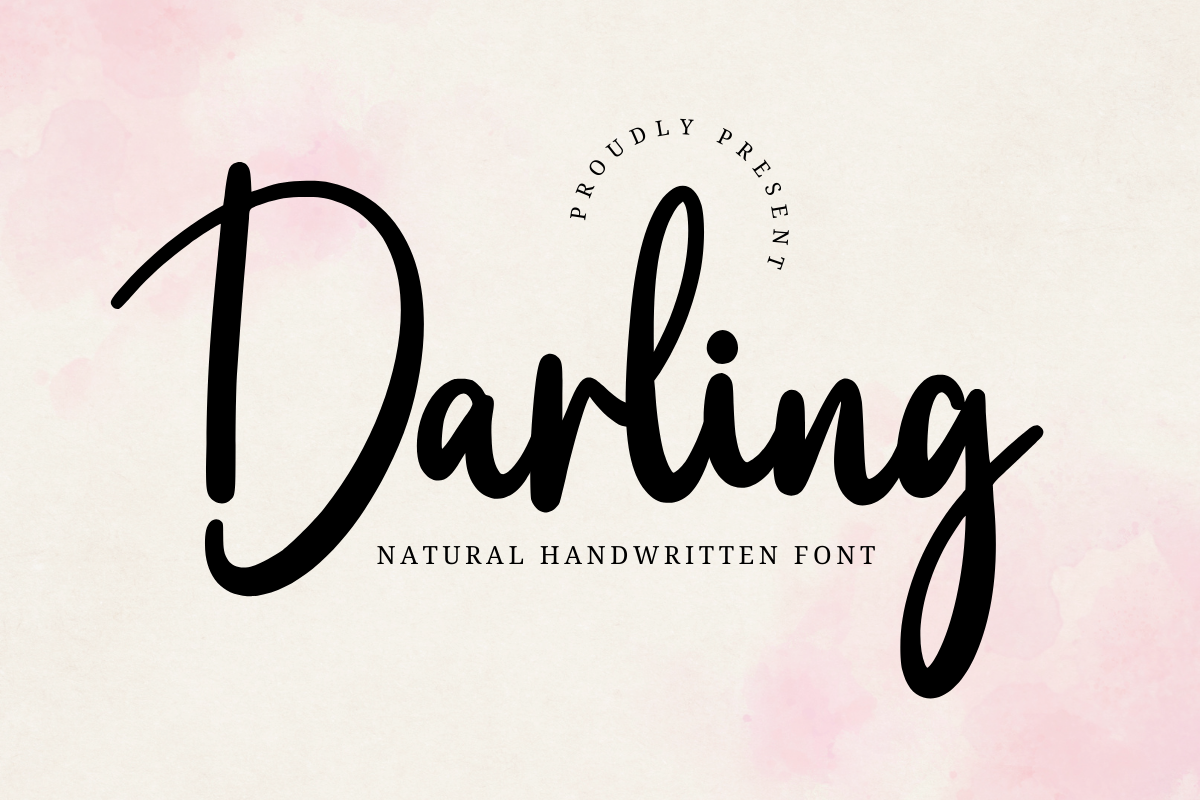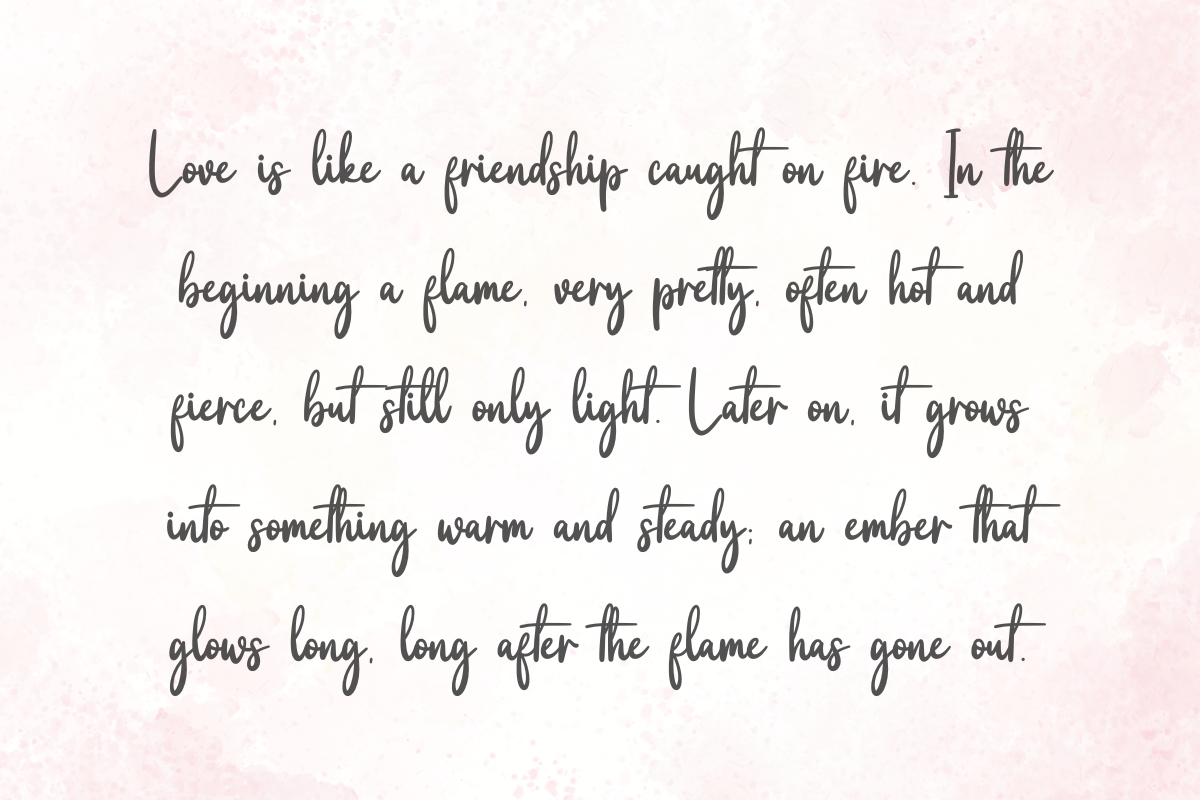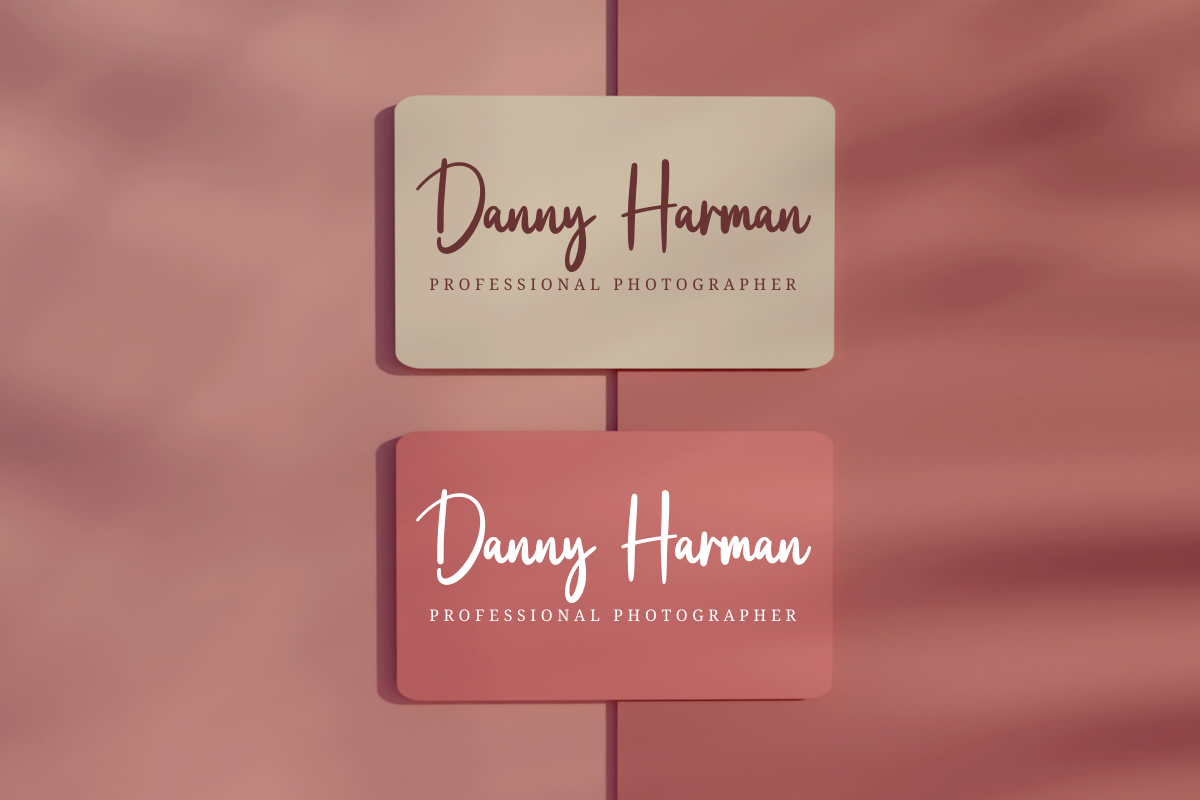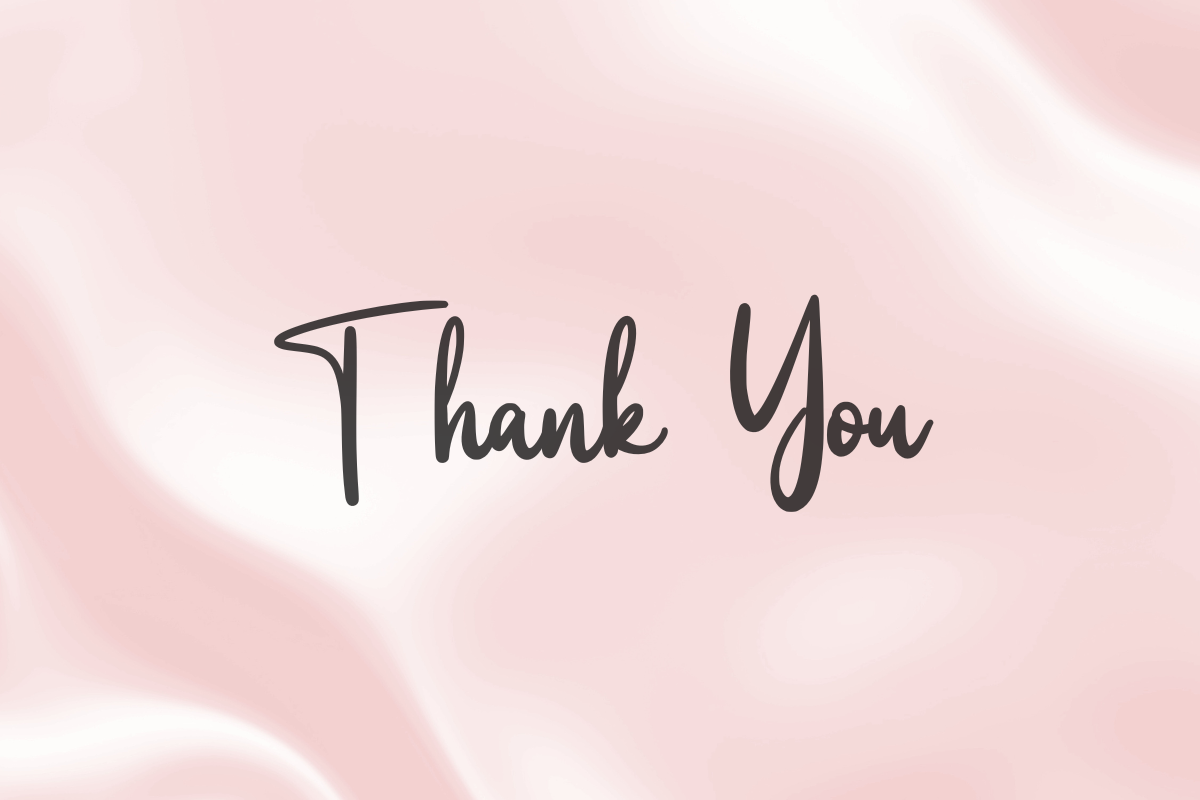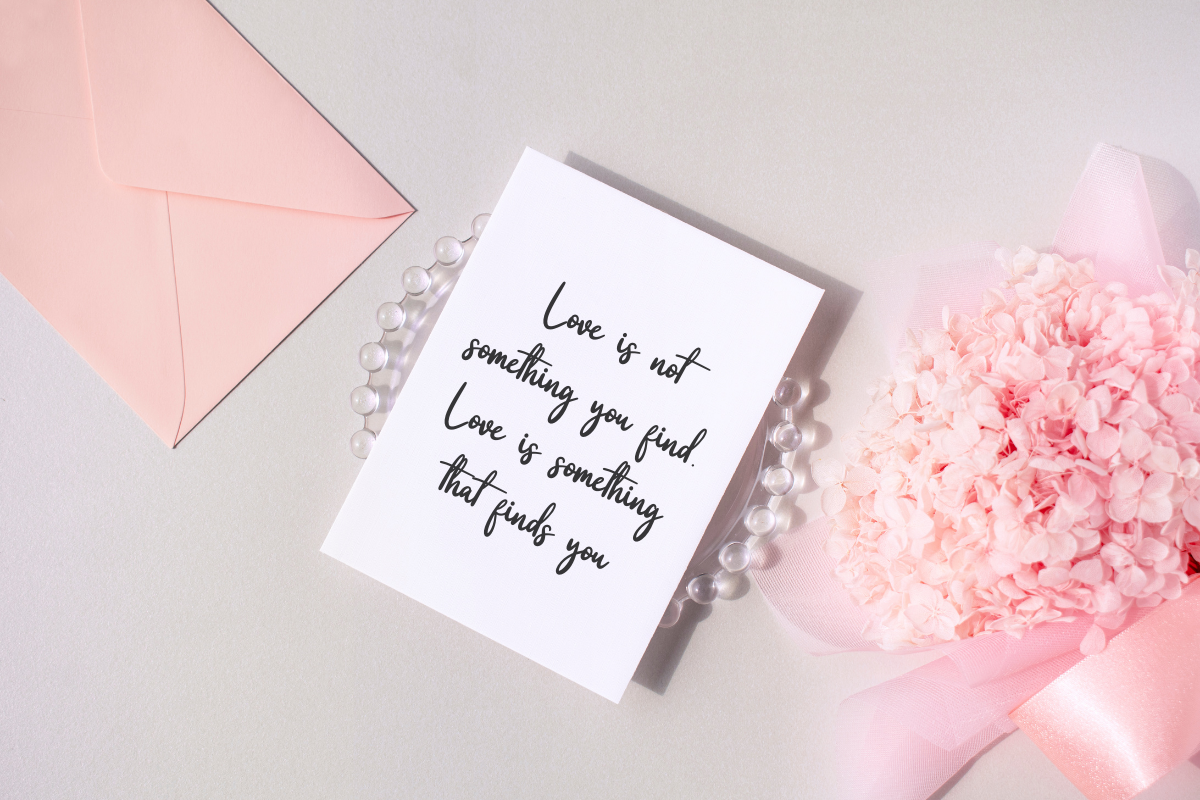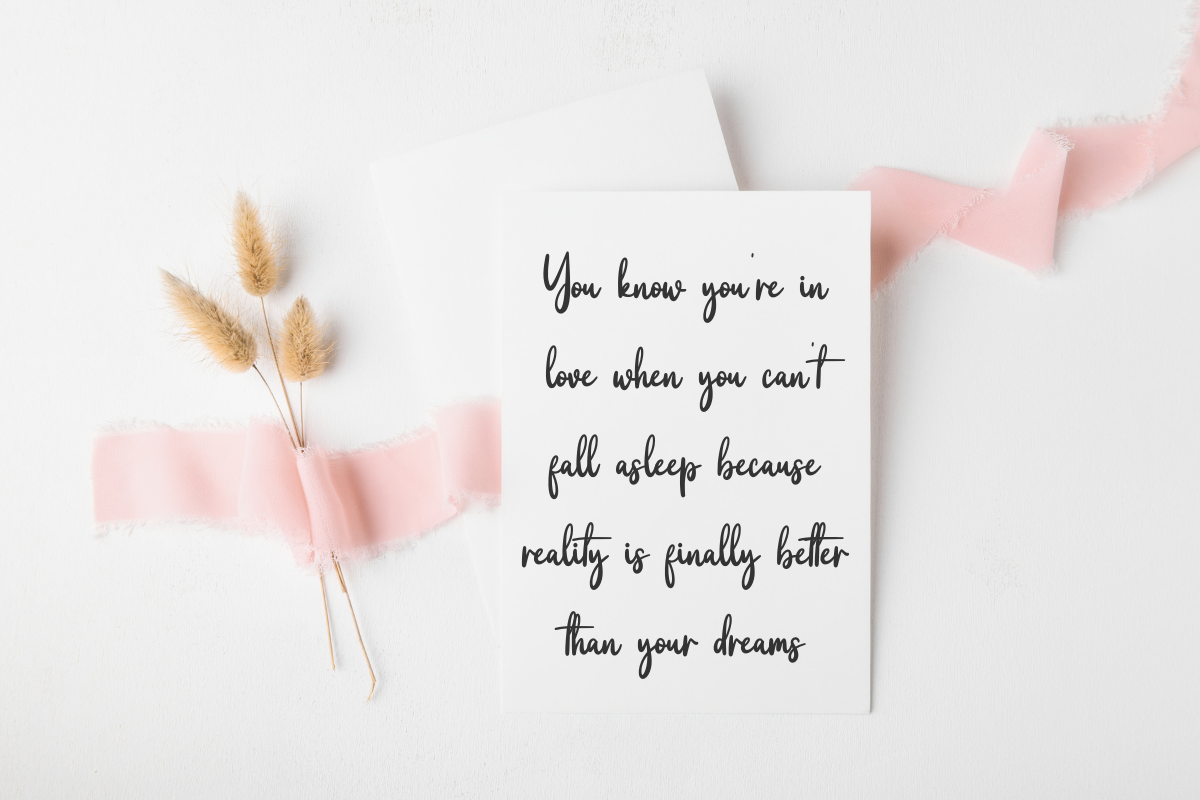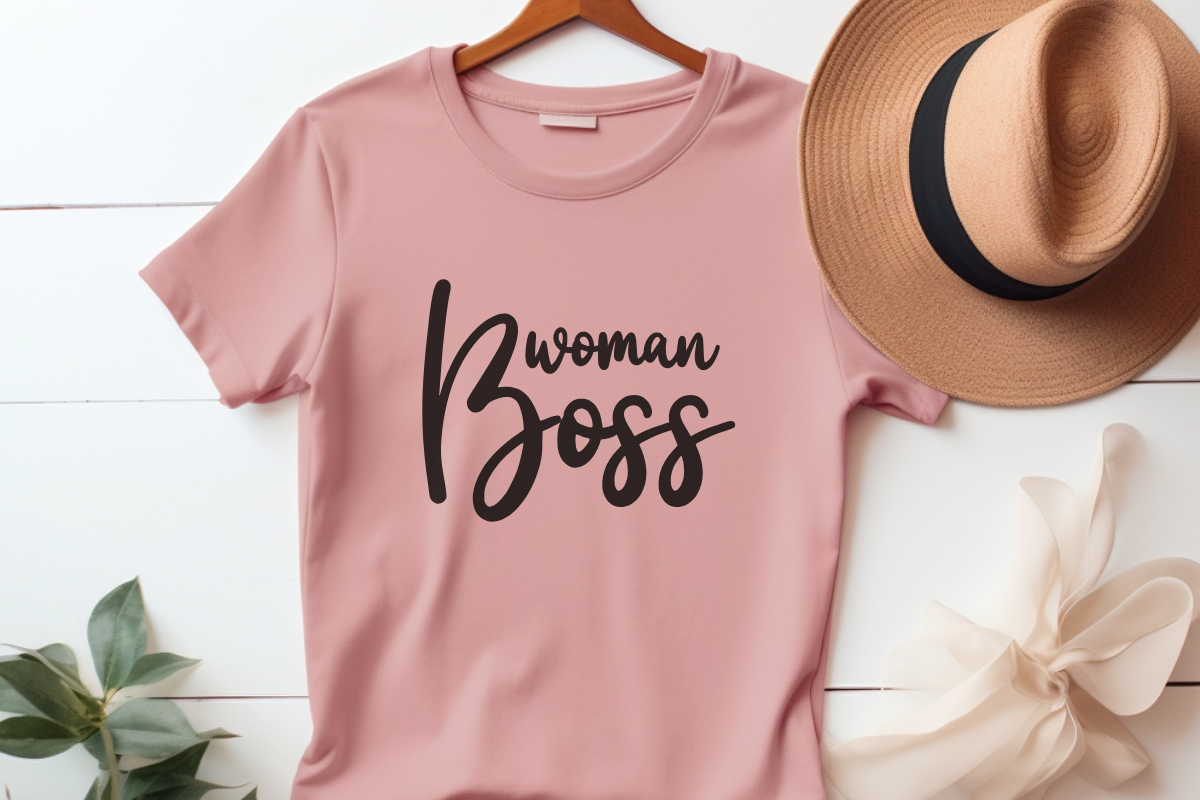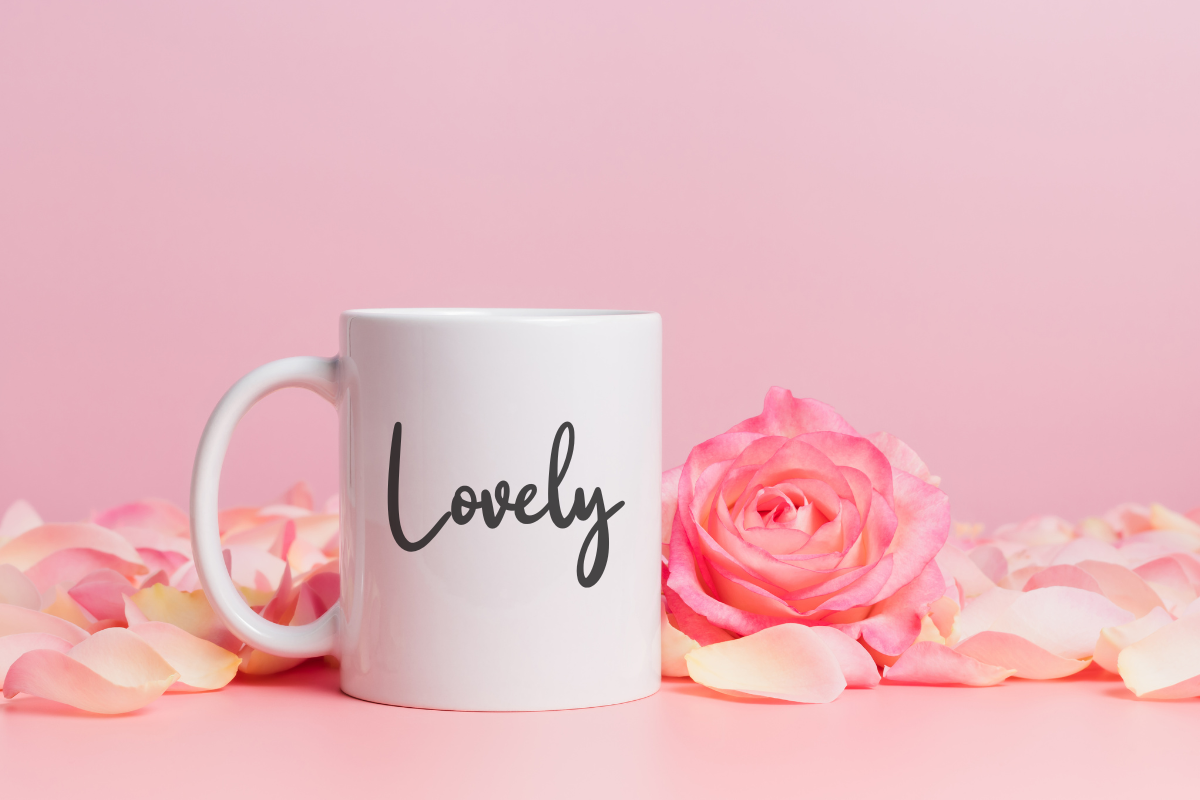
Darling - Natural Handwritten Font
Darling is an elegant and modern script font with smooth and luxurious strokes. Perfect for wedding invitations, branding, logos, quotes, greeting cards and signature styles. With a feminine and stylish look, this font will give an exclusive touch to your designs!